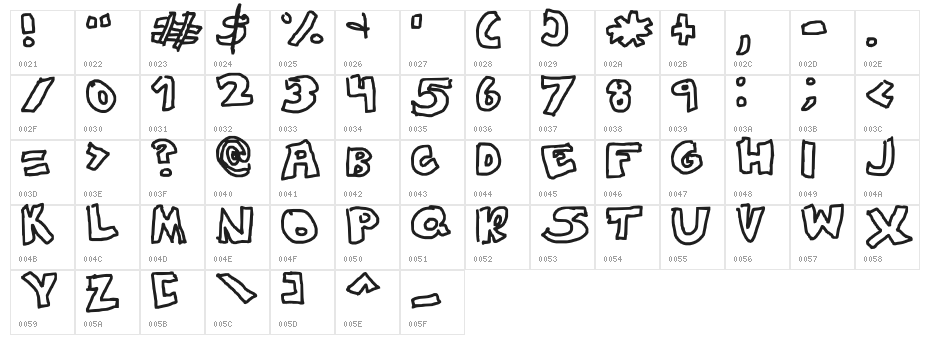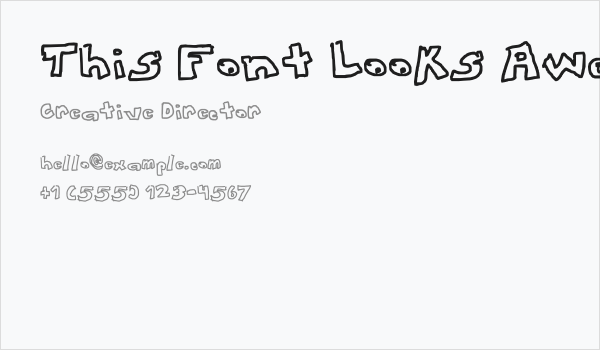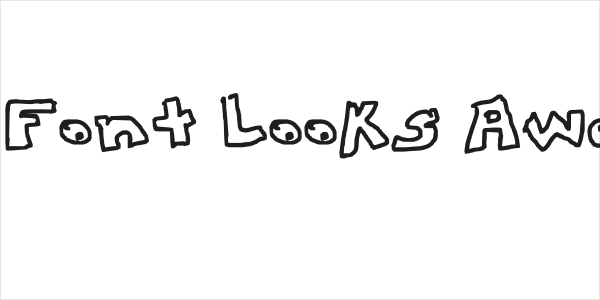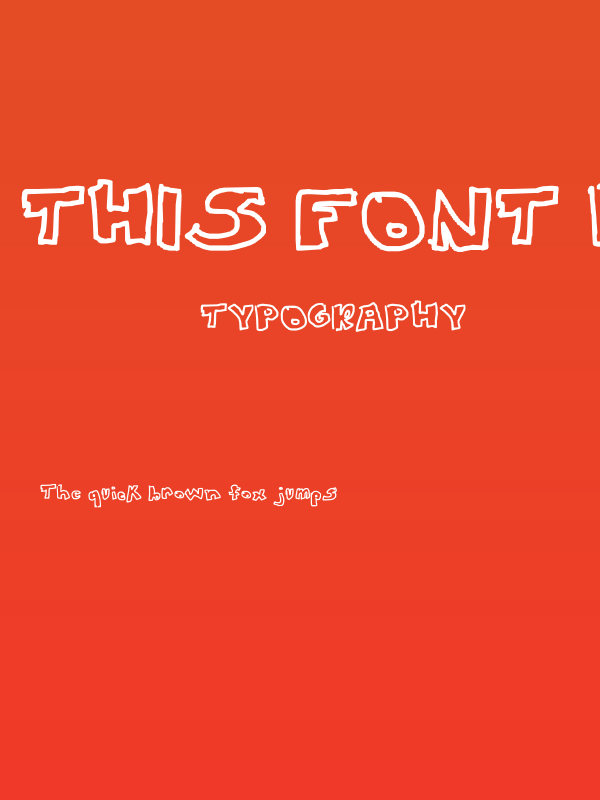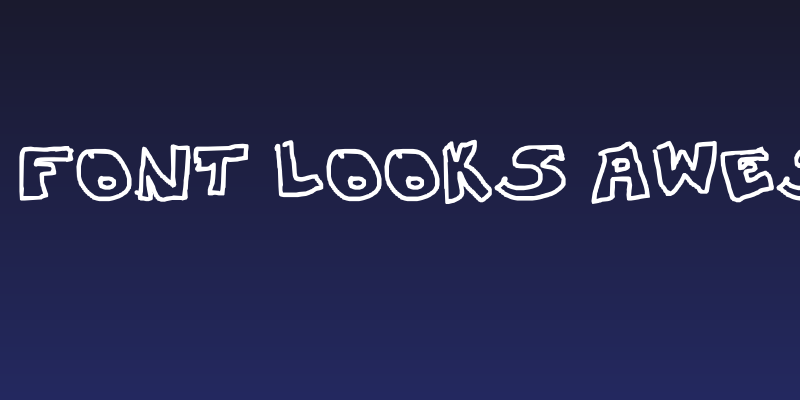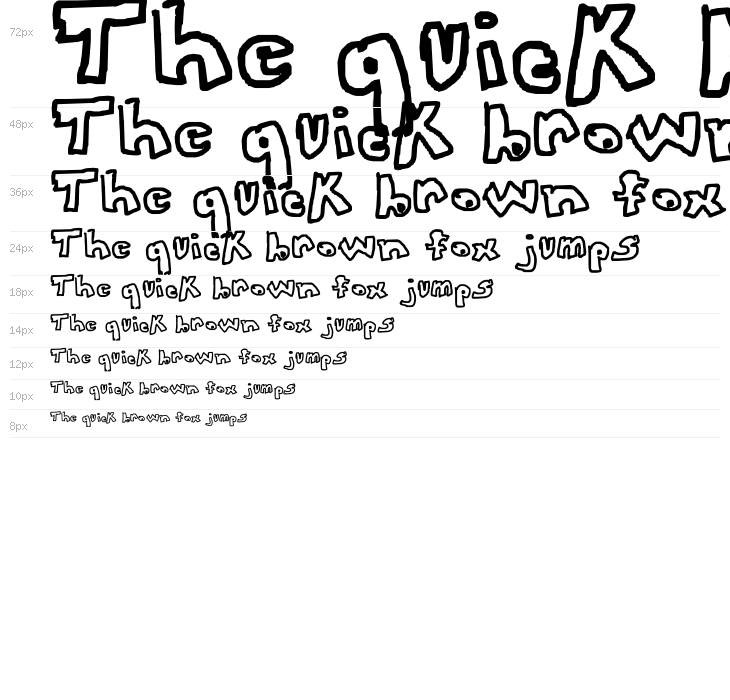
This Font Looks Awesome Font
This Font Looks Awesome Description
This font features a playful and bold hand-drawn style, characterized by irregular, wavy lines and a casual, informal appearance. The uppercase and lowercase letters maintain a consistent, quirky aesthetic, with exaggerated curves and uneven baselines that add to its charm. The numbers and special characters follow the same whimsical design, making it ideal for projects that require a fun and engaging look. The font's thick strokes and uneven edges give it a distinctive, eye-catching quality that stands out in any design.